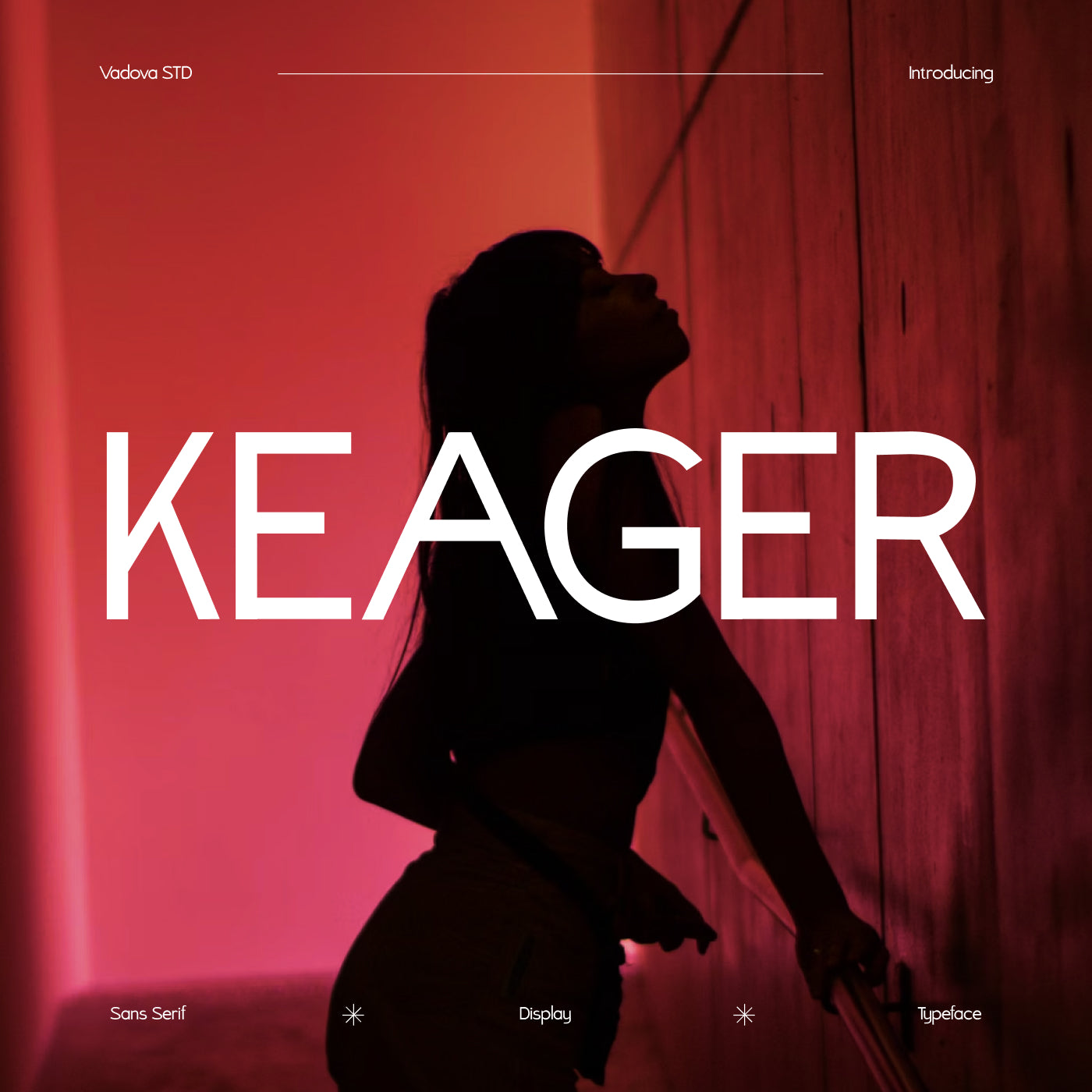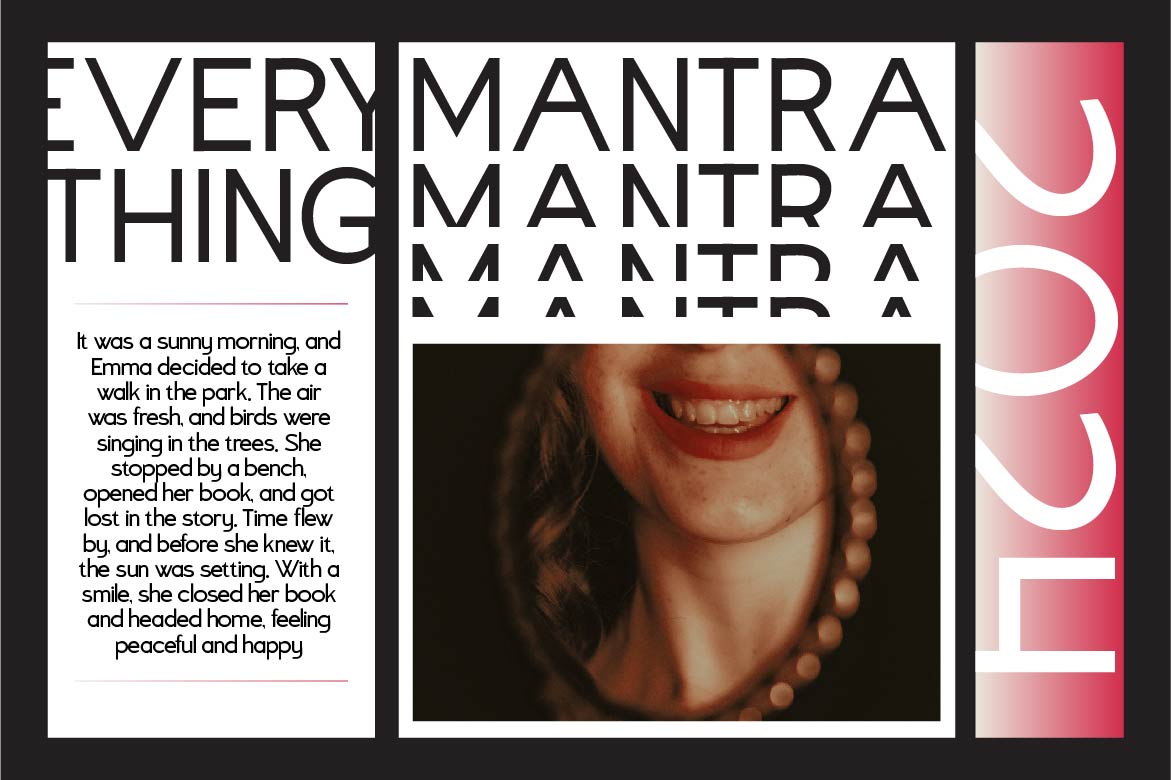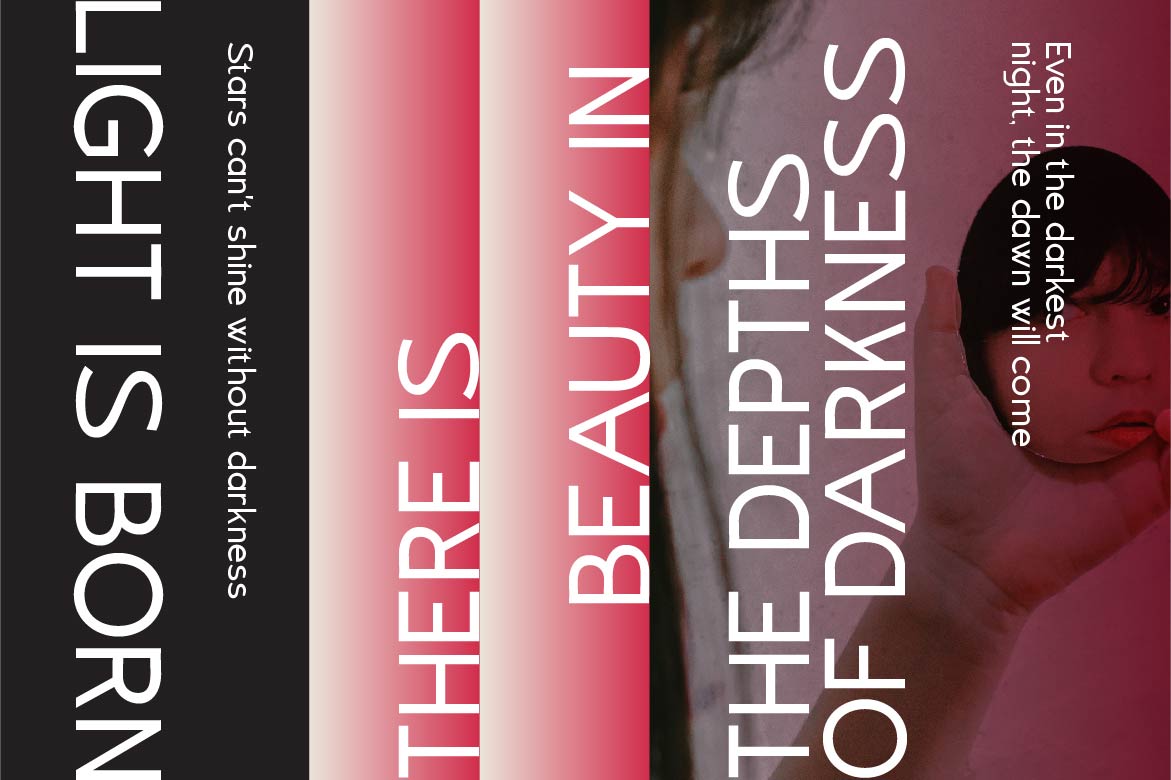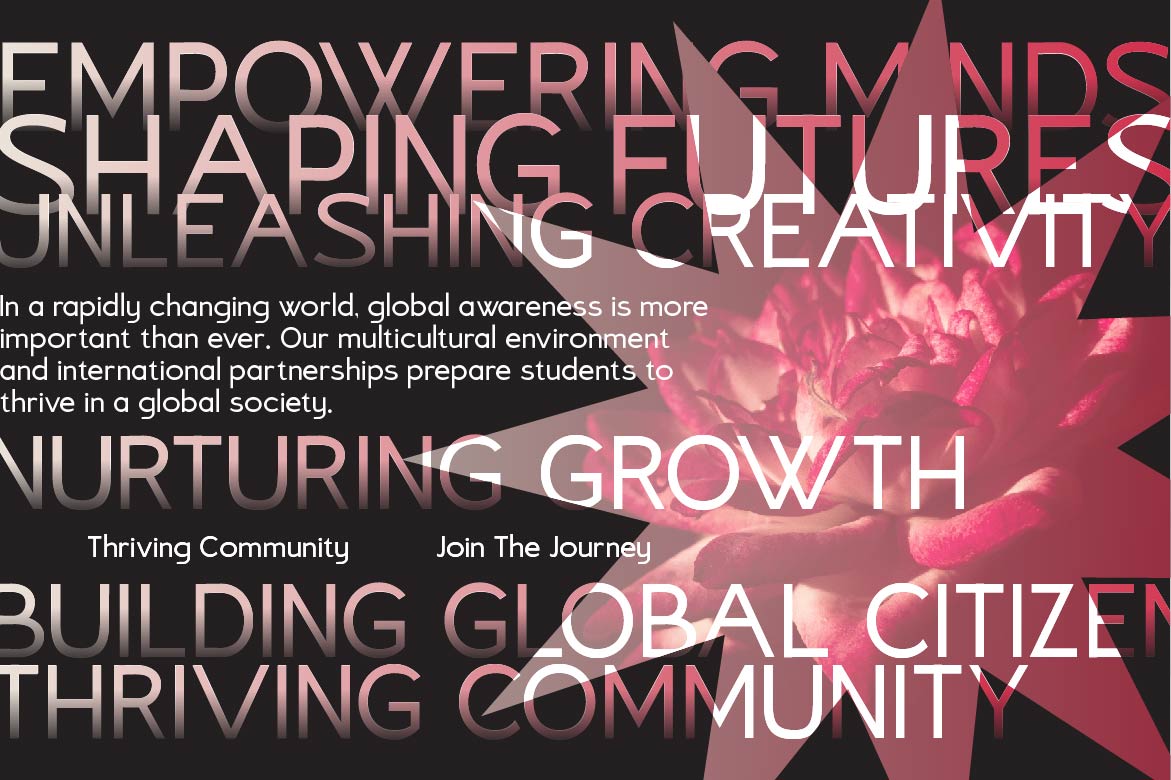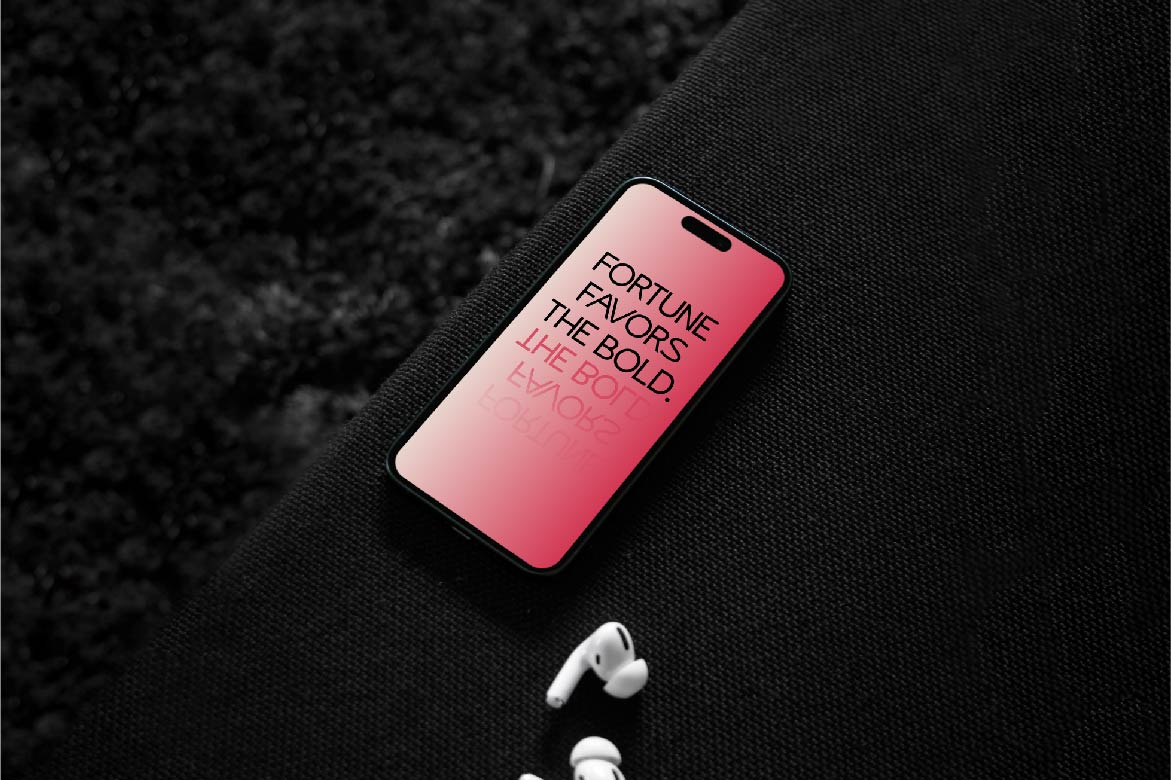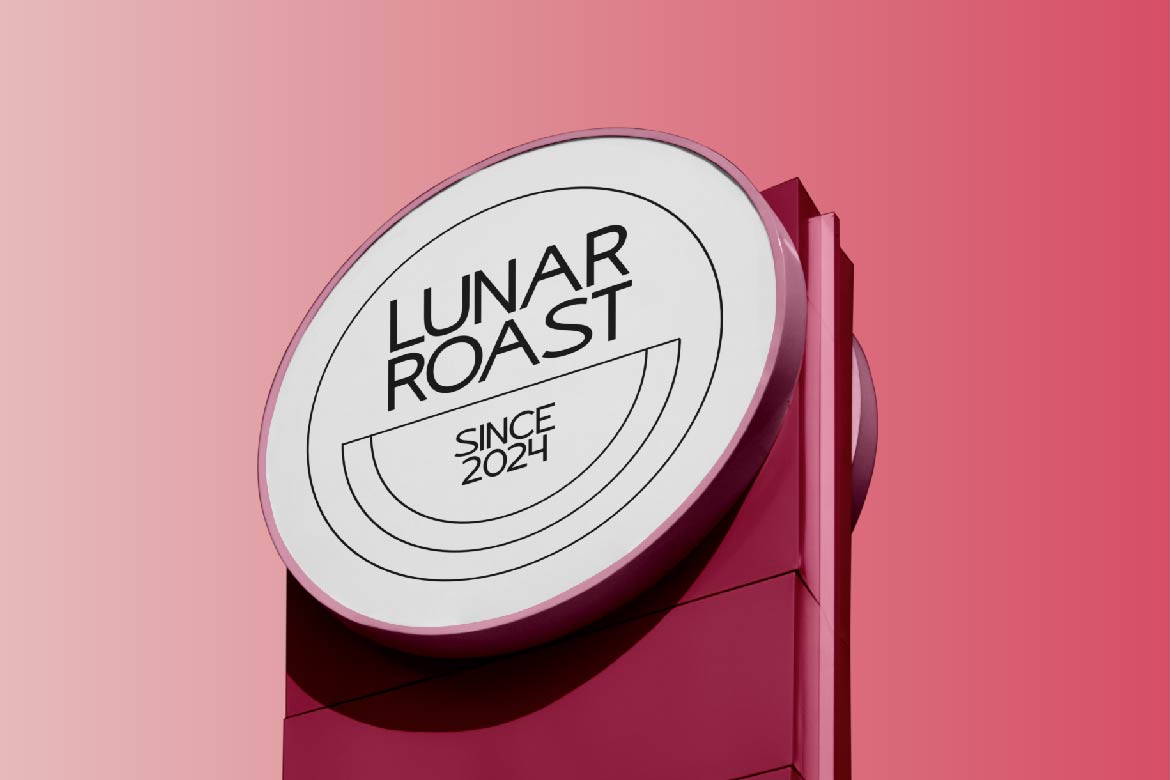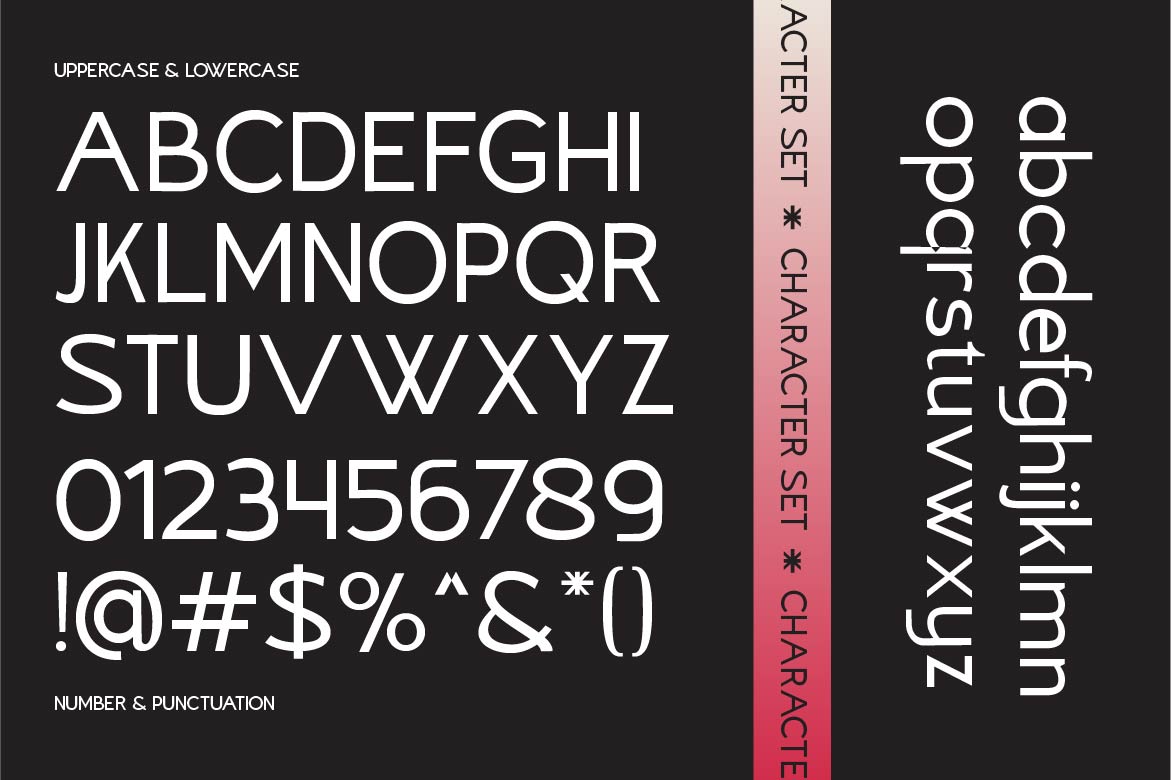
Keager Sans Serif Display Font
Keager Sans Serif Font emerges as a striking modern sans-serif typeface, exuding a bold and unique energy perfect for impactful visual communication. Its letterform structure leans towards a clean, contemporary geometric sans-serif, yet with distinctive characteristics that set it apart. This font is exceptionally well-suited for display purposes, making it ideal for grabbing attention in branding initiatives, social media graphics aiming for a strong and modern aesthetic, and impactful packaging designs. Its confident and stylish vibe also lends itself well to fashion magazine headlines and editorial designs seeking a contemporary edge.
Suitable for Modern branding, impactful advertising, attention-grabbing social media, contemporary website headers, stylish packaging, fashion editorial.
The Keager Sans Serif Display Font is a modern geometric sans-serif typeface available in TTF, OTF, and WOFF formats, featuring both uppercase and lowercase characters, as well as numerals and punctuation. Its bold and distinctive design makes it suitable for a variety of display applications.